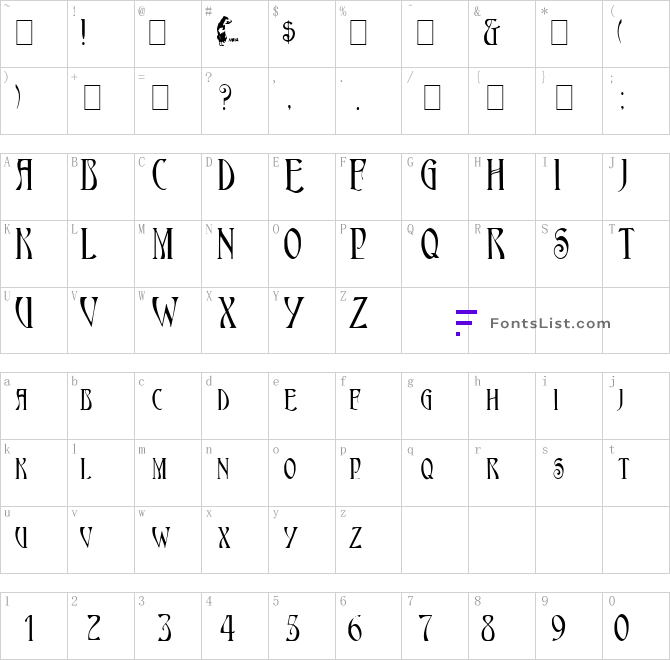
- Font Name:AmbrosiaCap
AmbrosiaCap-Cap-001001.ttf is a very beautiful artistic font, AmbrosiaCap-Cap-001001.ttf is widely used in the design and printing of various books and pictures,AmbrosiaCap-Cap-001001.ttf has a strong visual impact,AmbrosiaCap-Cap-001001.ttf is a commonly used font in newspapers, magazines and books, and is used in posters, e-commerce Poster design, store design, logo design, font design and other fields.AmbrosiaCap-Cap-001001.